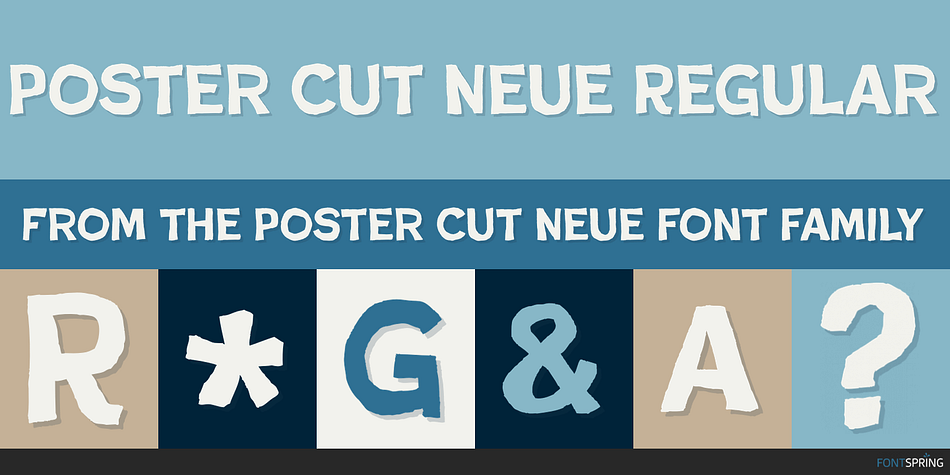
Poster Cut Neue Regular
Designed by Adam Ladd, Poster Cut Neue is a hand display font family. This typeface has two styles and was published by Adam Ladd.
Poster Cut Neue is a hand-drawn, rough display font family. Having some retro grotesque sans serif inspiration, the characters give an informal and active look and feel. The imperfections keep it casual but it is still legible. This font is ideal for organic and natural applications where a more human touch is required with branding, packaging, headlines, posters, advertising, illustrations, titles, and more.
Simply switch between upper and lowercase letters for a uniquely drawn glyph, adding variety and helping avoid repetition. Underlined vowel stylistic alternates (PUA-encoded) also add visual interest to your typography.
Poster Cut Neue’s features include:
• Regular and Italic (Oblique) fonts
• Unique upper and lowercase letters
• Stylistic alternates
• Arrow icons
Having almost 500 glyphs, this font has extensive multilingual Latin language support (100+ languages) for Western, Central, and South Eastern European.